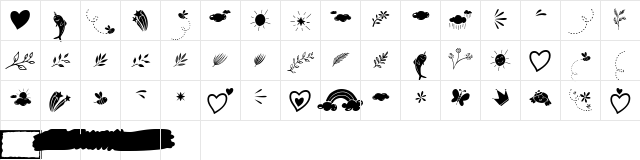
Complete Heart Warming Extra Regular glyph index. Displaying only characters natively supported by Heart Warming Extra Regular font.
Heart Warming Extra is a composed and adaptable typeface that performs quietly and consistently across a wide range of design contexts.